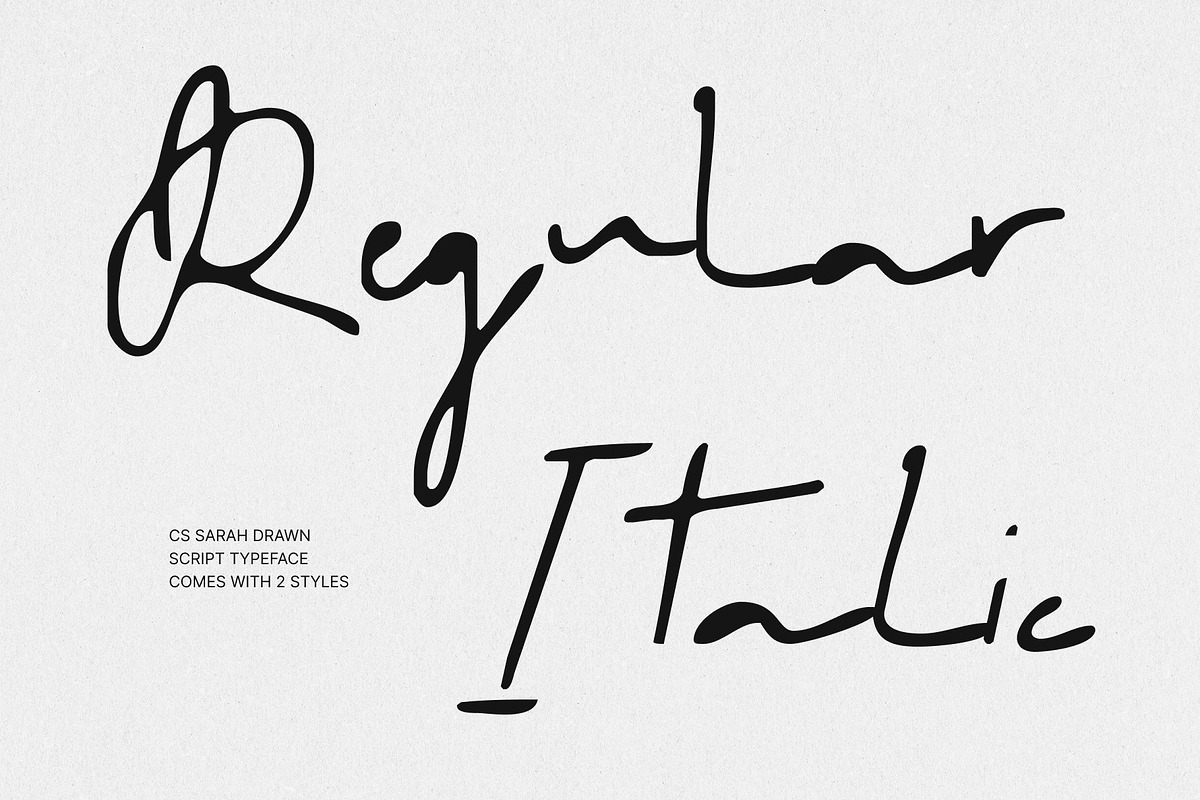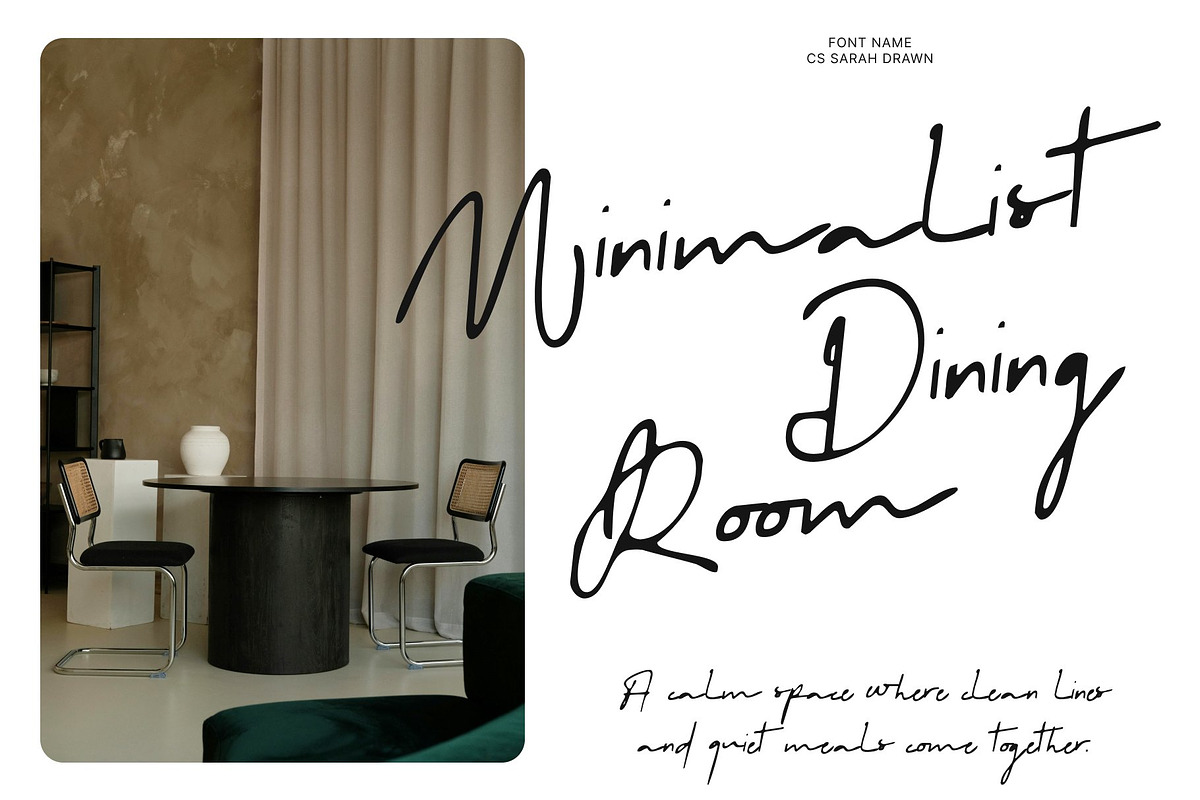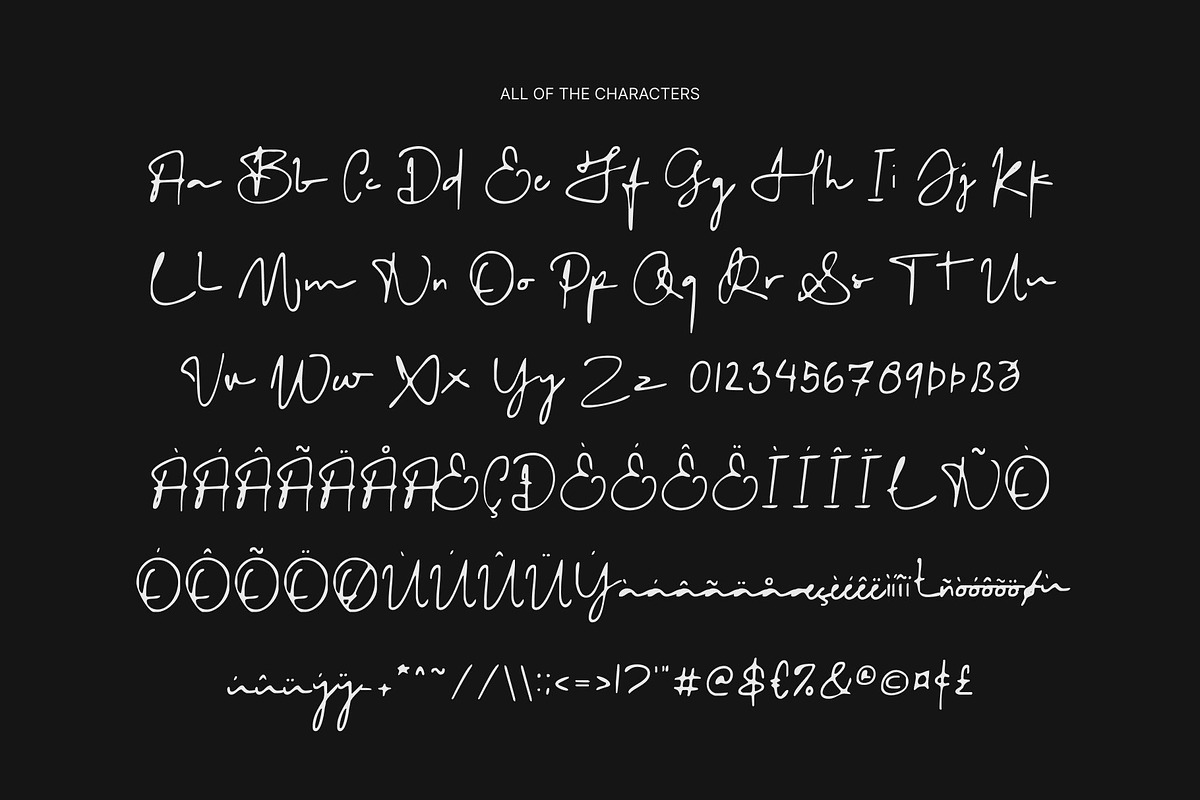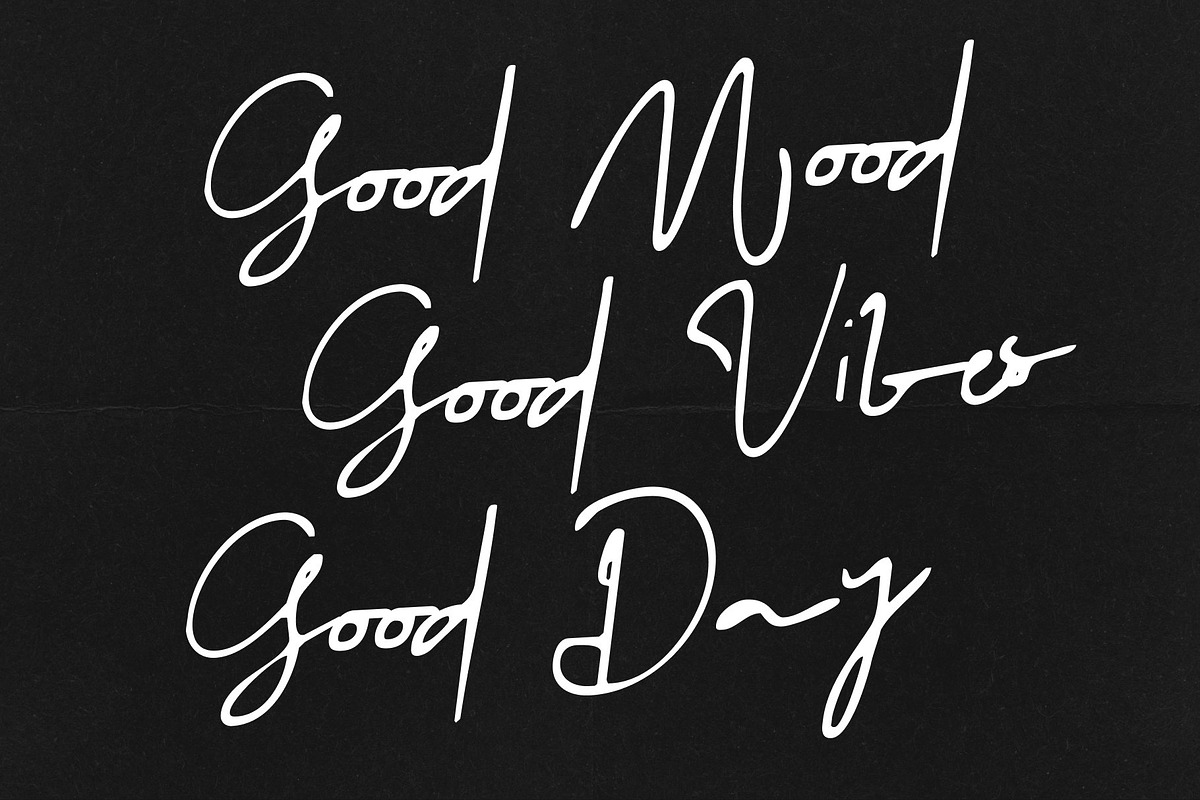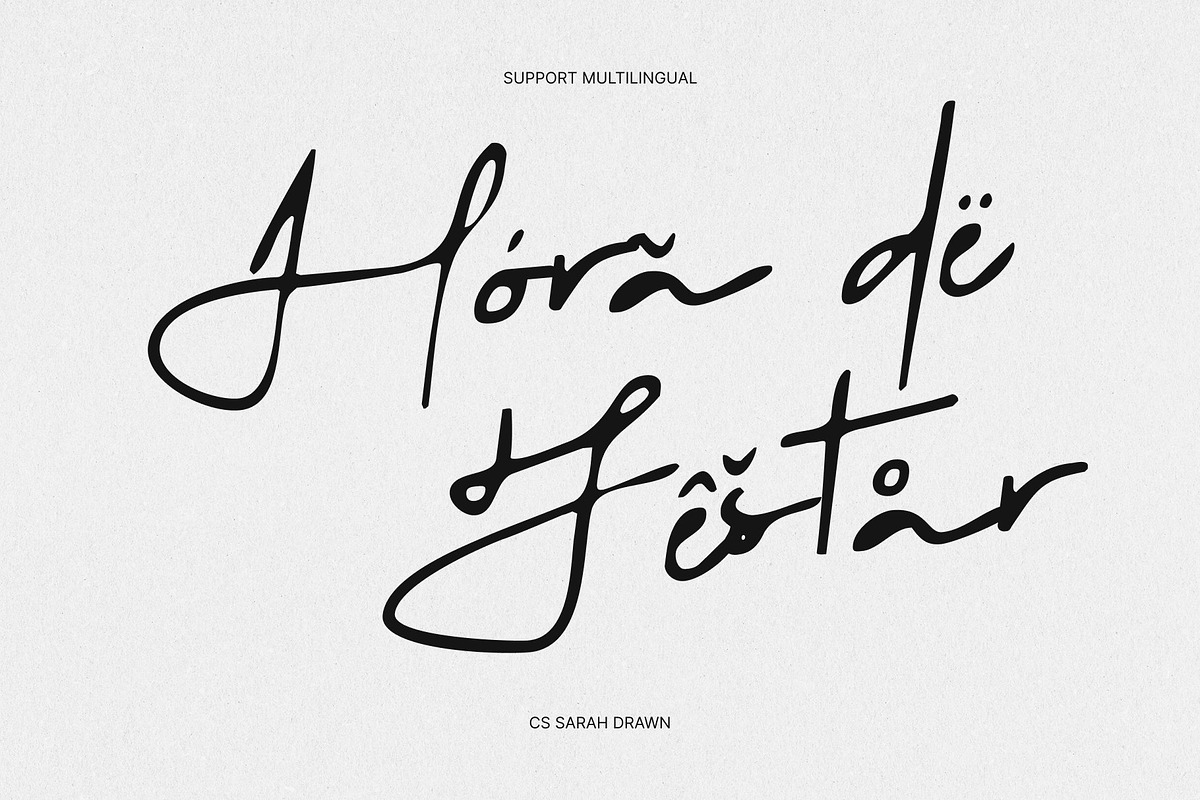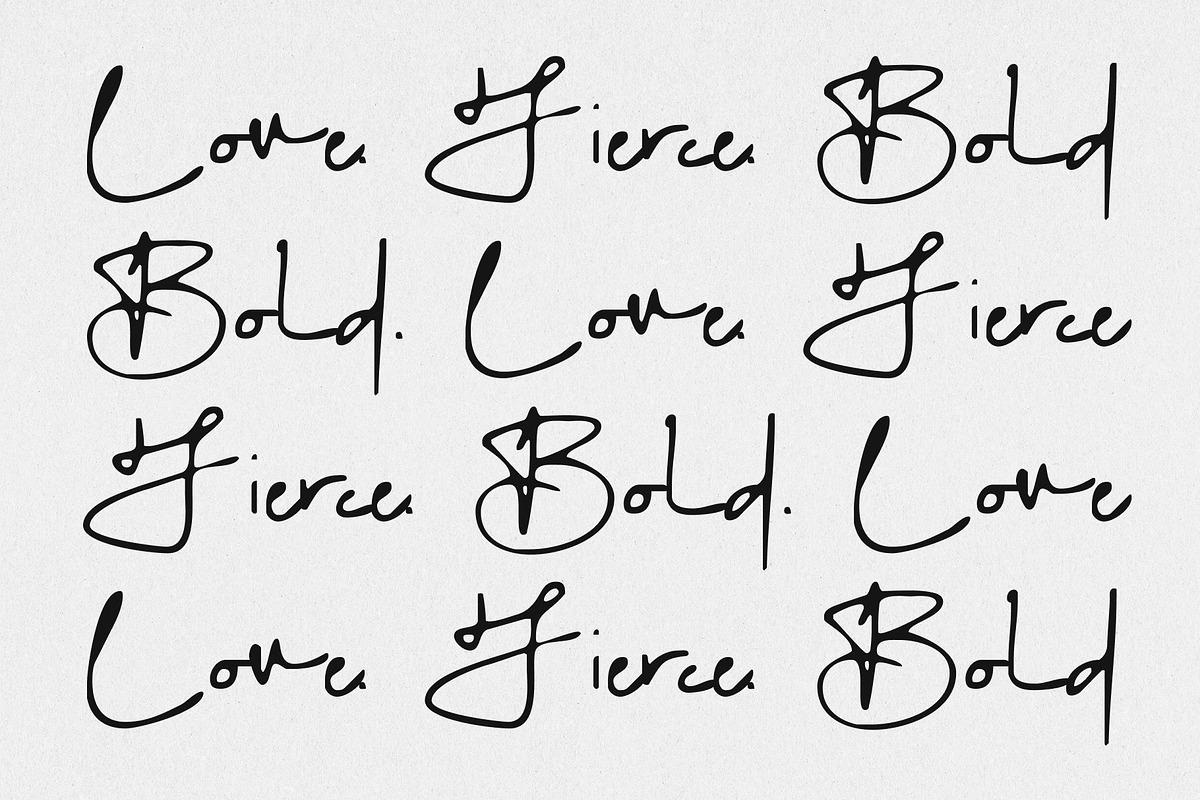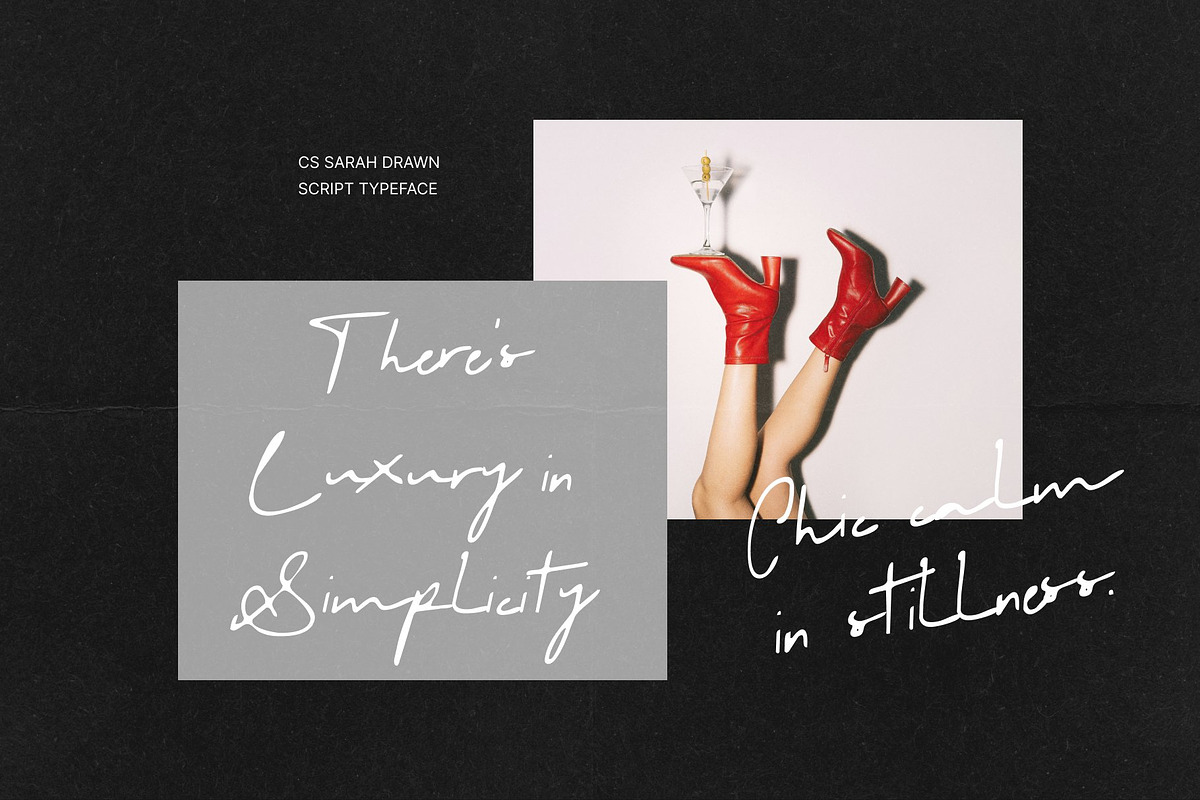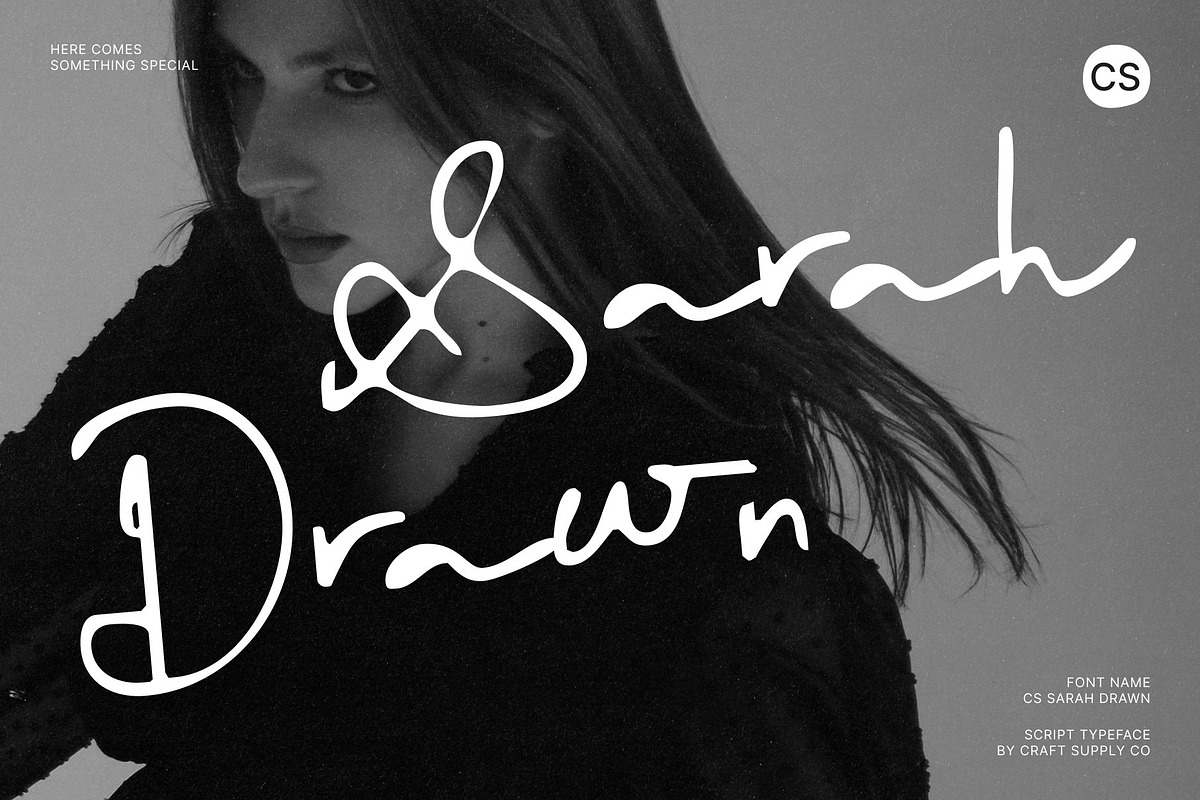
CS Sarah Drawn
CS Sarah Drawn – Graceful Handwritten Elegance with Refined Clarity
Handwritten Script with Polished Hand-Drawn Character This is a handwritten script font designed to express grace, refinement, and effortless elegance, enhanced with a subtle hand-drawn texture. Its smooth flow and carefully balanced letterforms create a polished appearance that feels sophisticated yet naturally personal. Inspired by refined handwriting, it delivers a timeless script style enriched with warmth and artistic nuance.
Elegant Flow with Clear, Confident Readability Each letterform is crafted to move fluidly while maintaining excellent legibility. Gentle curves, consistent rhythm, and thoughtful spacing allow words to appear graceful without losing clarity. The delicate drawn details add authenticity and softness, ensuring the script feels expressive rather than mechanical.
Refined Expression with Subtle Warmth This font conveys luxury and professionalism through its clean yet organic handwritten form. The harmonious balance between control and natural stroke variation gives it a poised, confident presence. It works beautifully as a signature accent or as a main typographic feature in layouts that require sophistication with personality.
Ideal for Logos, Editorials, and Luxury Packaging Perfect for logos, editorial layouts, luxury packaging, branding, invitations, and premium promotional materials, this font enhances fashion, beauty, lifestyle, and upscale brands. Its graceful handwritten style delivers a refined typographic presence that elevates projects with clarity, elegance, and timeless charm.